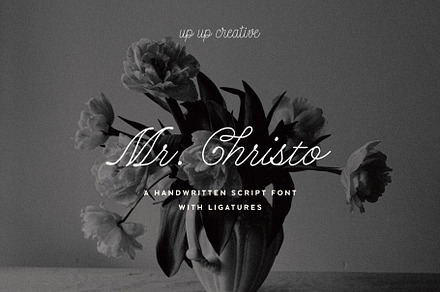
Mr Christo Calligraphy Script Font
A calligraphy script with a modern looseness – the pen discipline of traditional calligraphy relaxed into something more casual and contemporary.
Modern calligraphy deliberately breaks the rules of formal penmanship while keeping enough of them that the result still reads as skilled rather than careless.
- Connecting alternates and ligatures